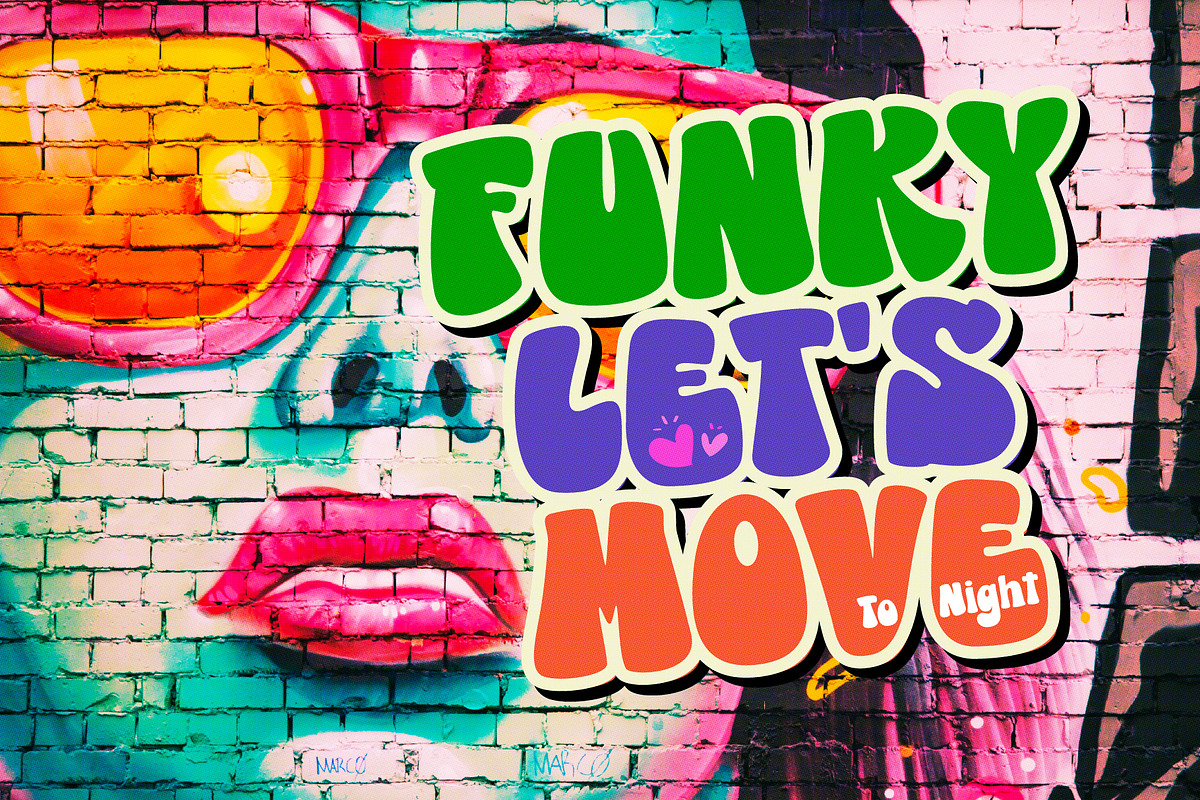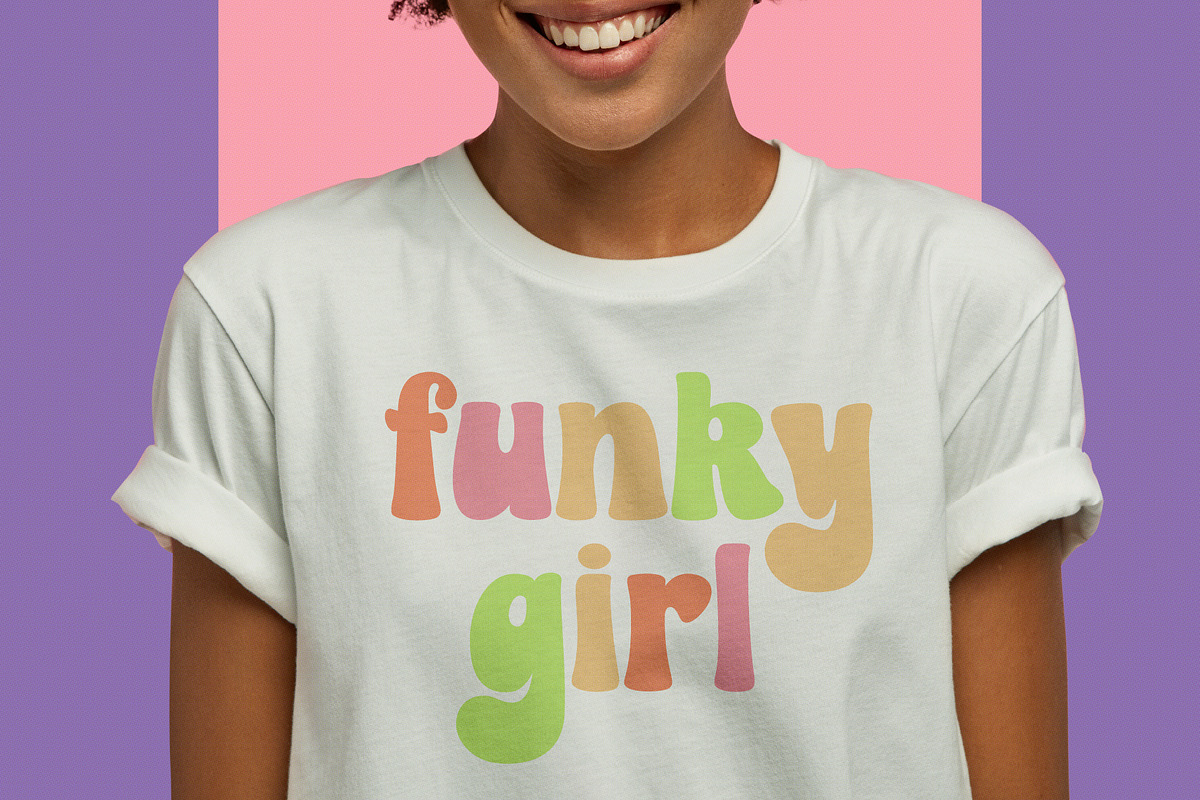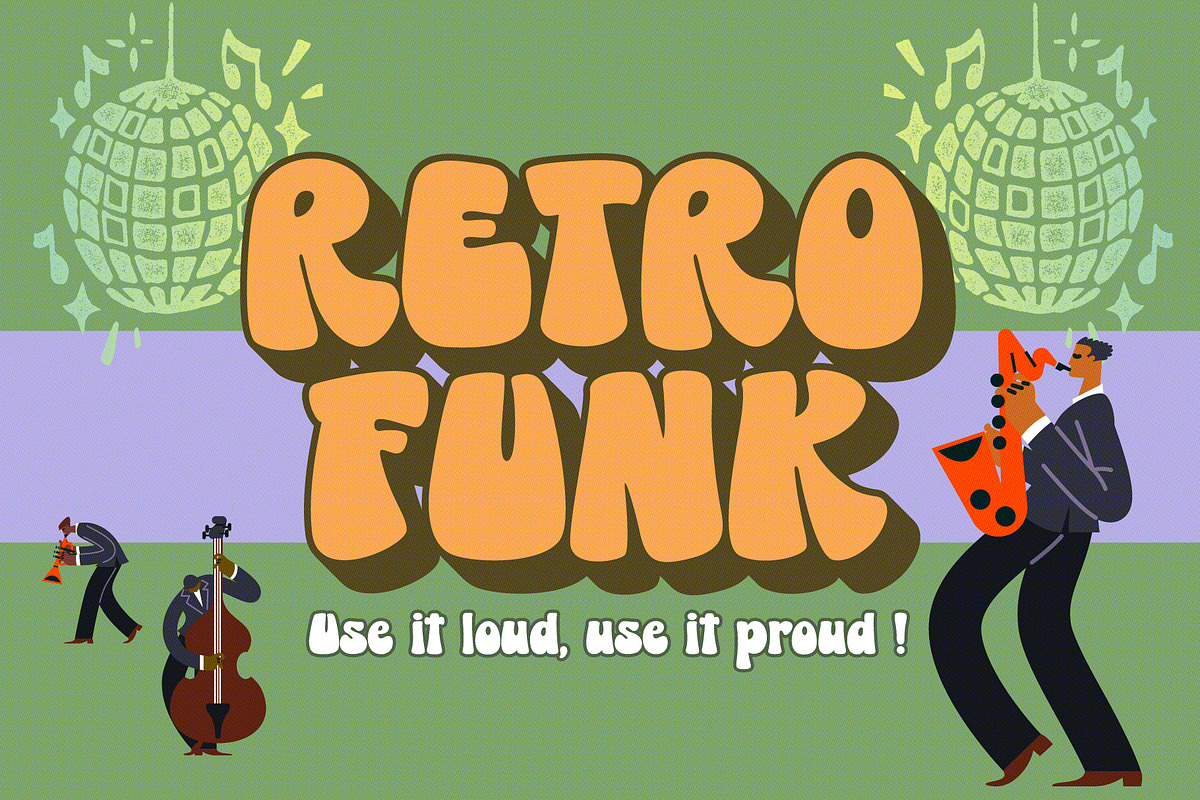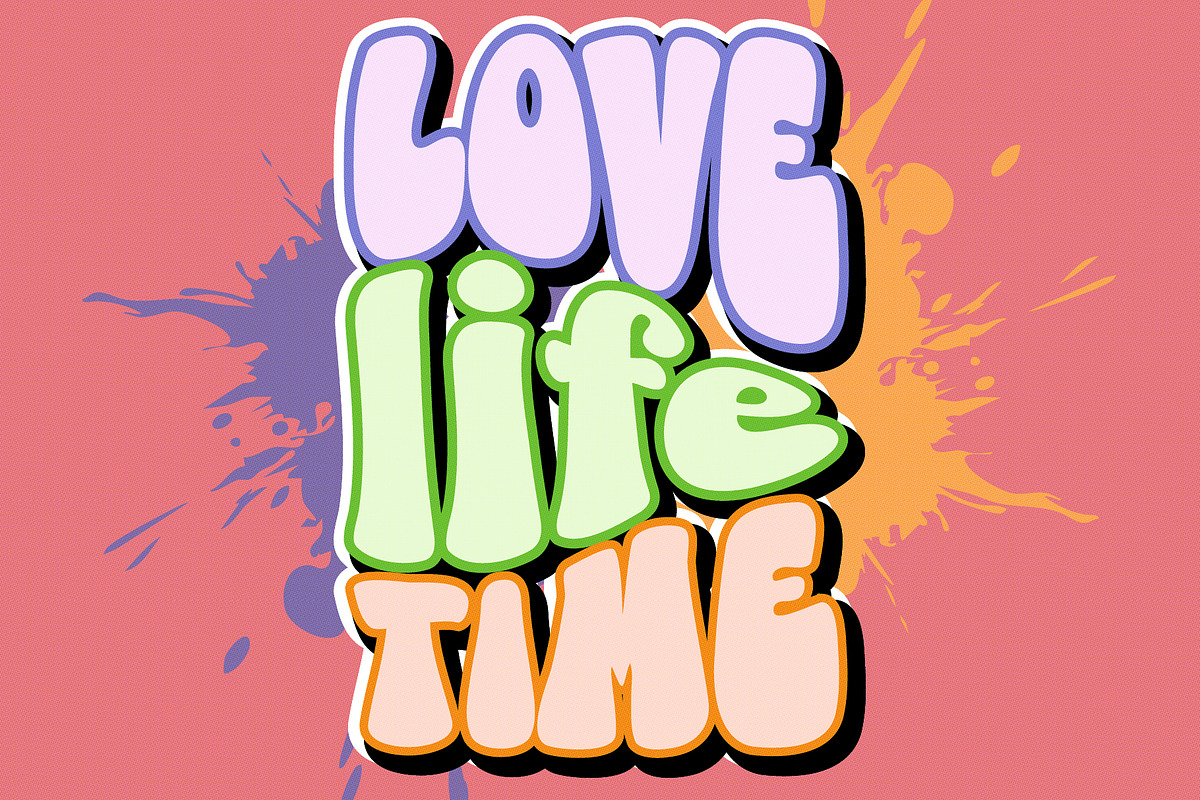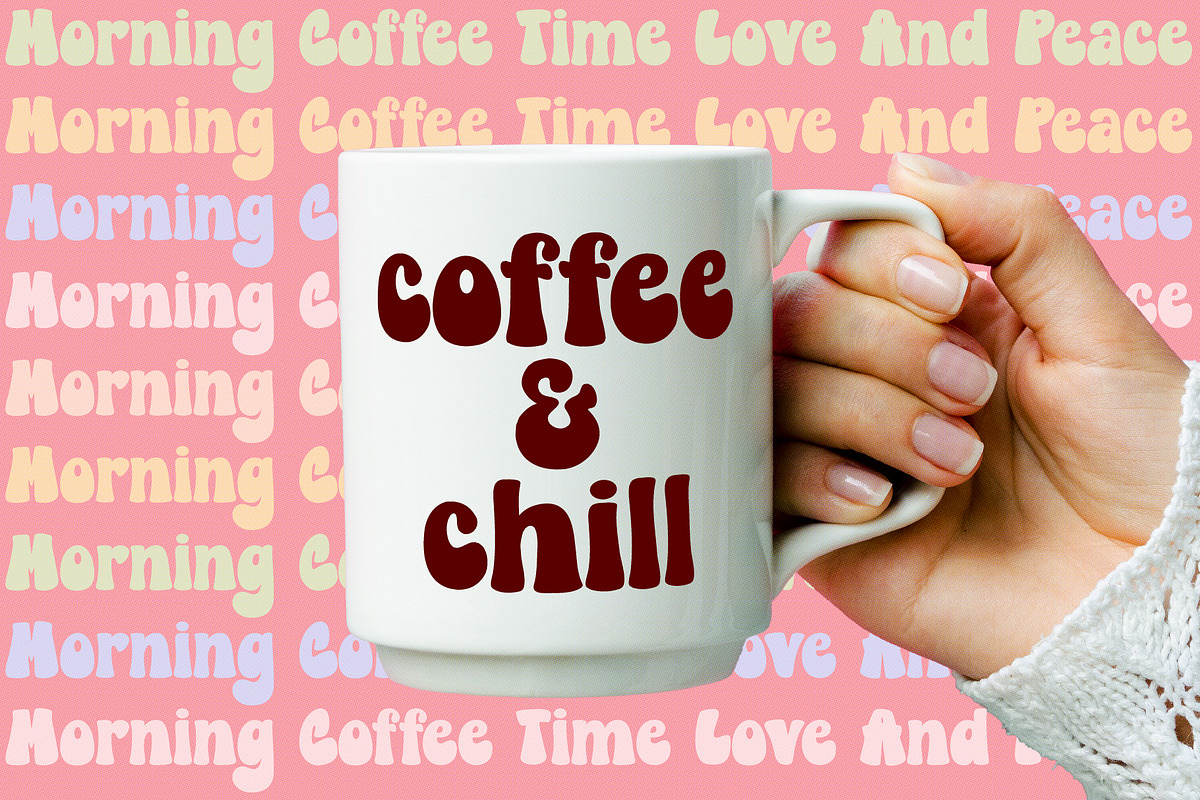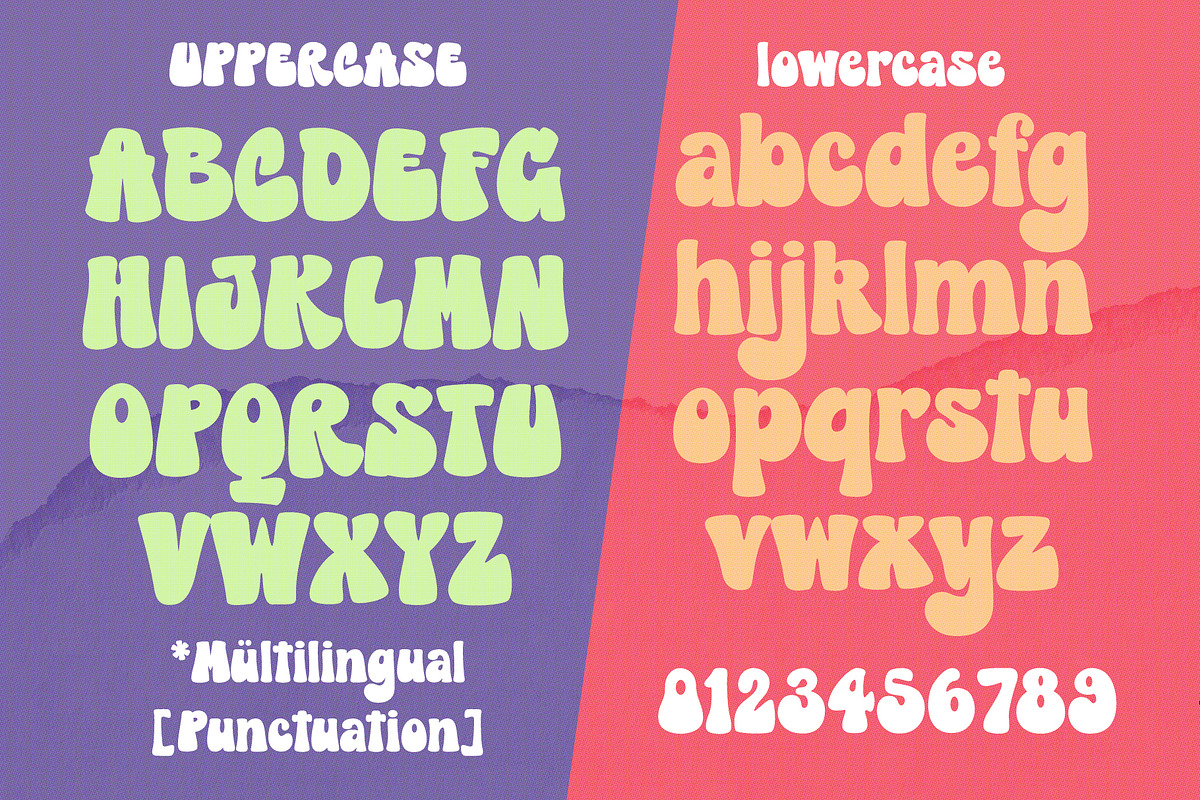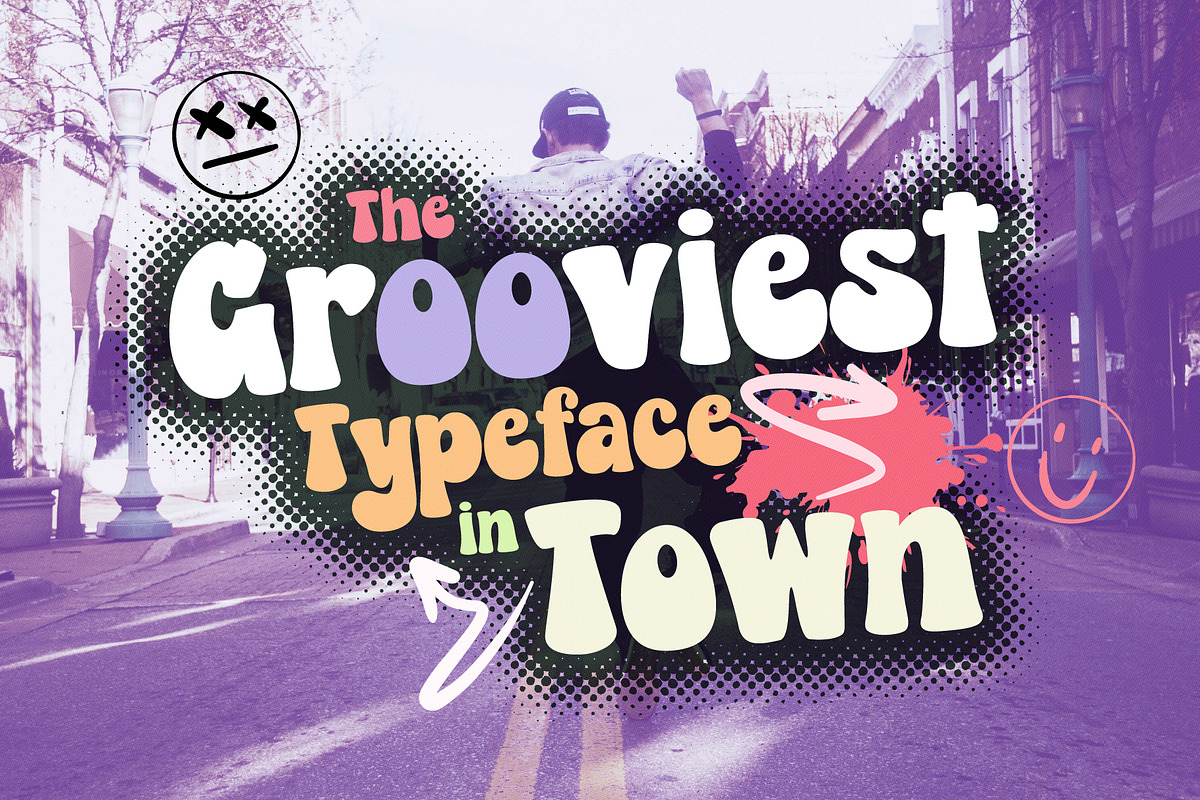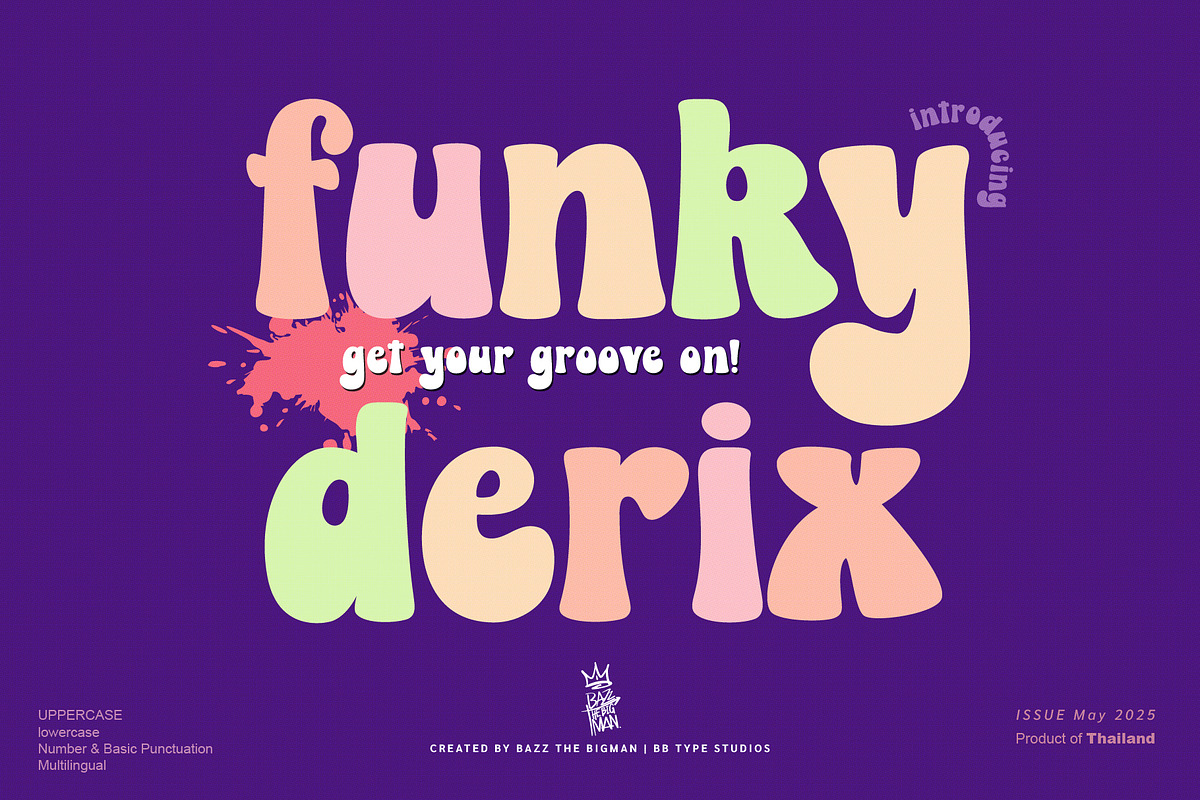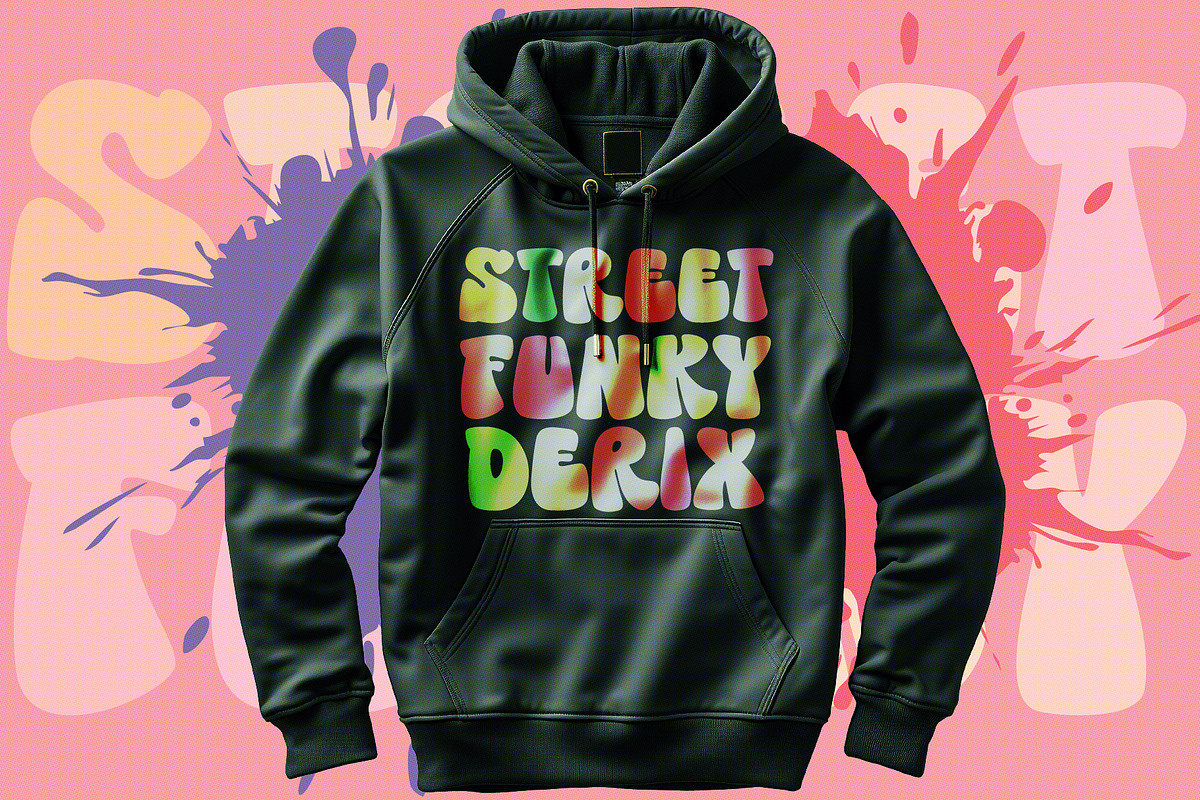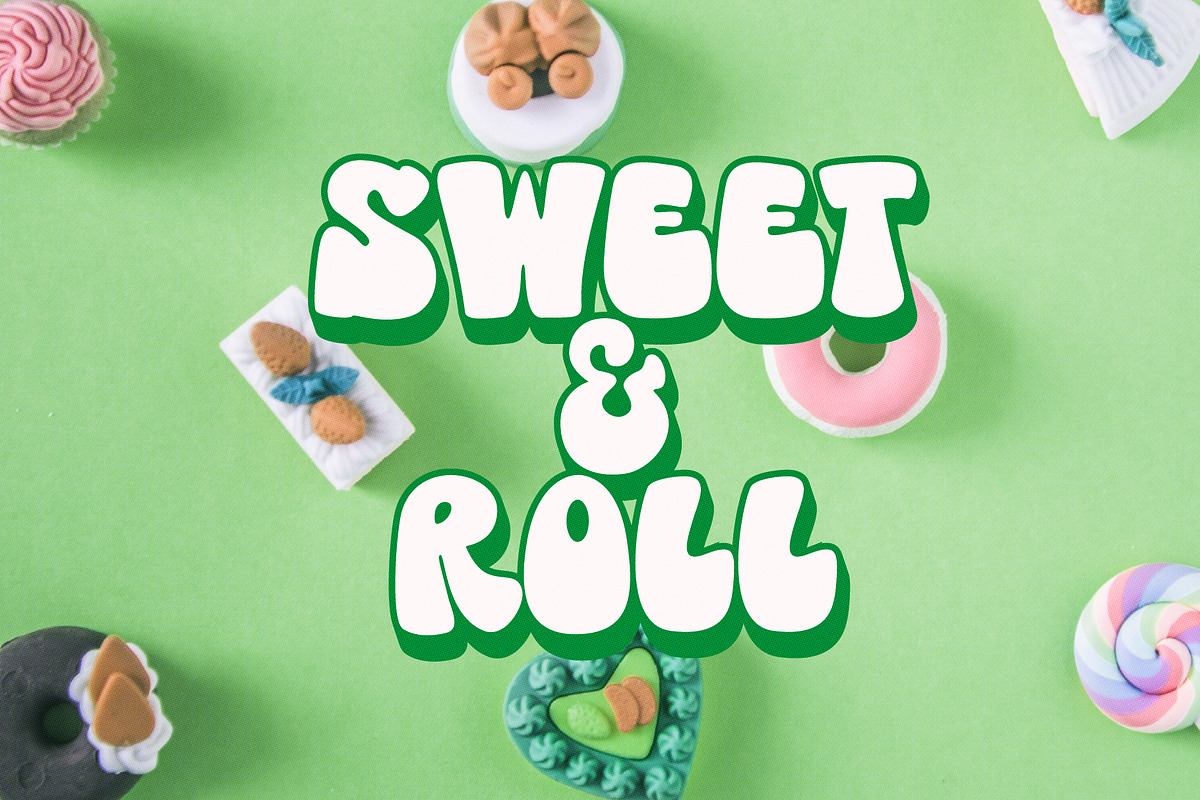
Funky Derix
Funky Derix: Where Retro Meets Modern. Step back in time with Funky Derix, a bold and playful display font that captures the essence of the 60s and 70s. Inspired by the vibrant energy of disco and the free spirit of the psychedelic era, Funky Derix brings a unique groove to your designs. Perfect for headlines, branding, posters, and anything that needs a touch of retro charm with a modern twist.